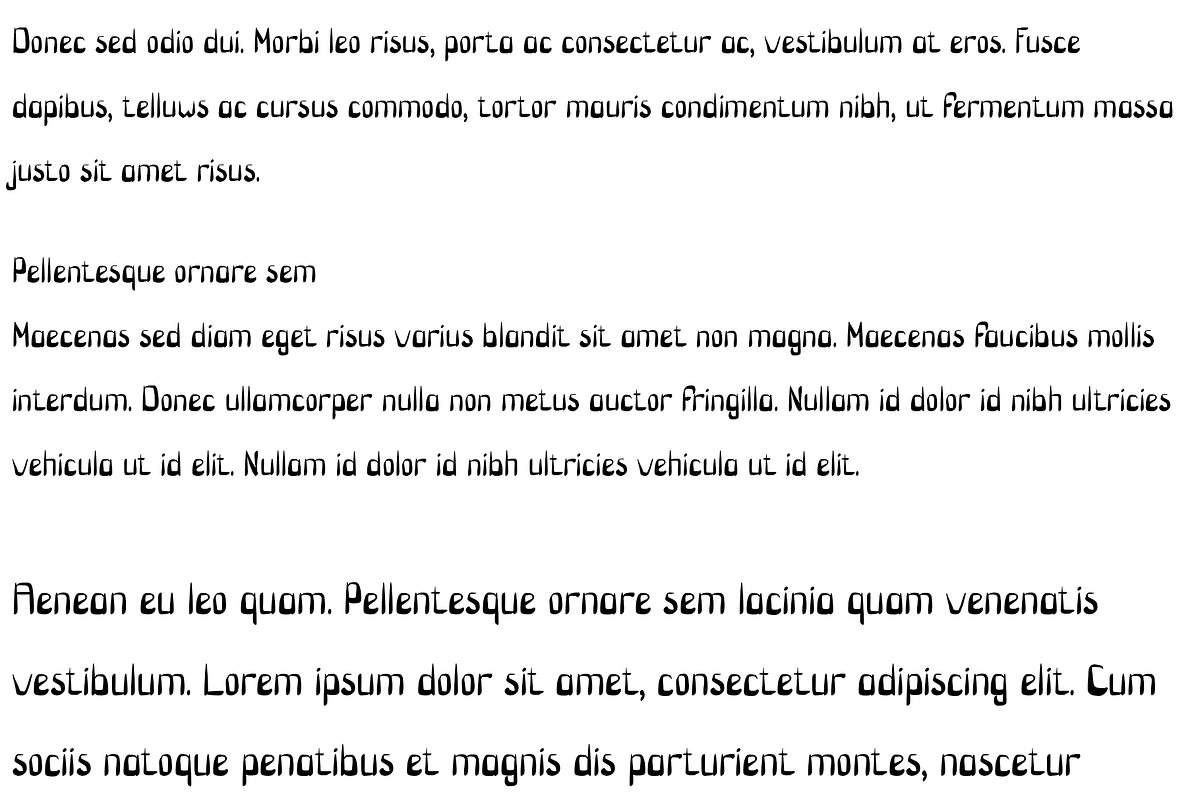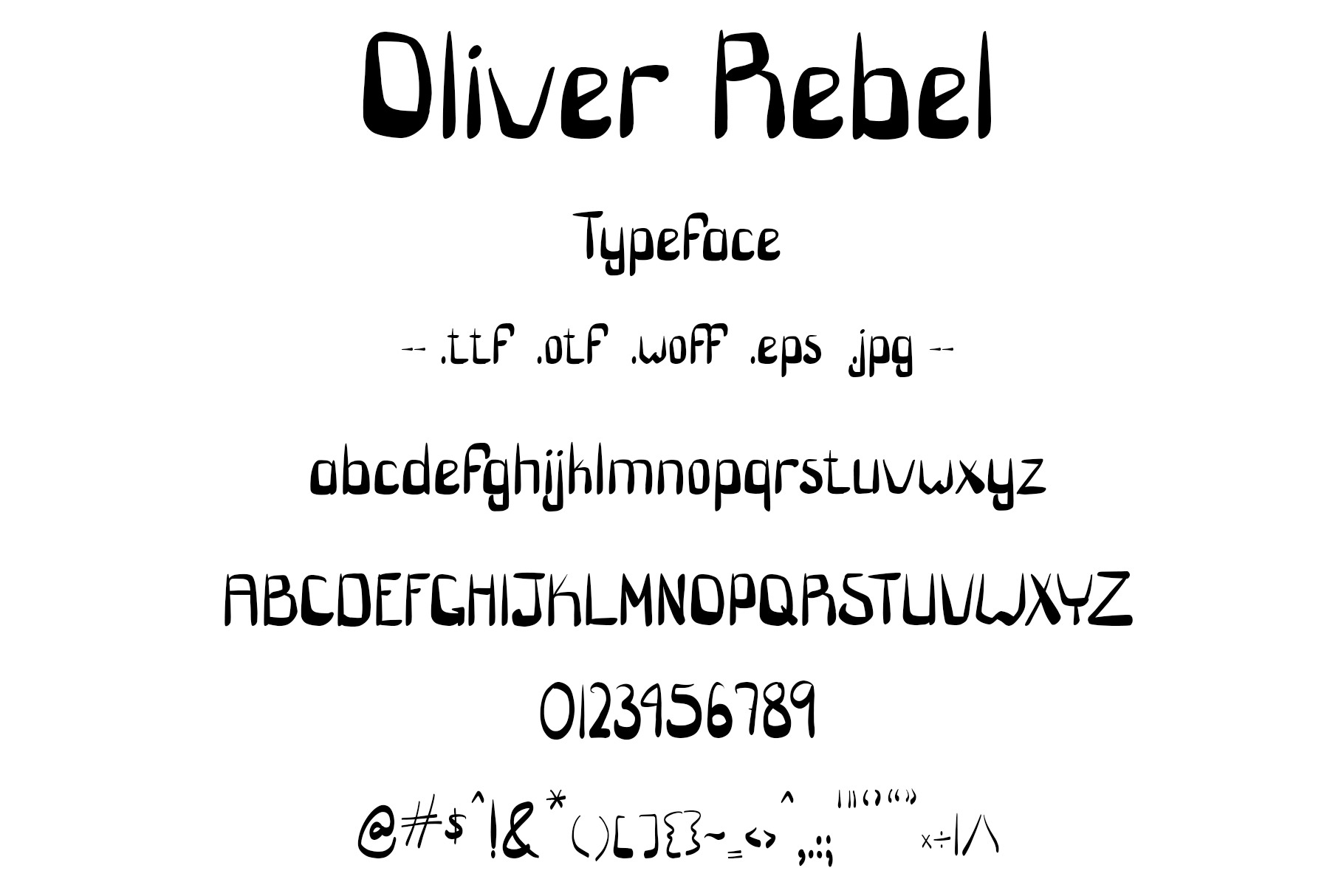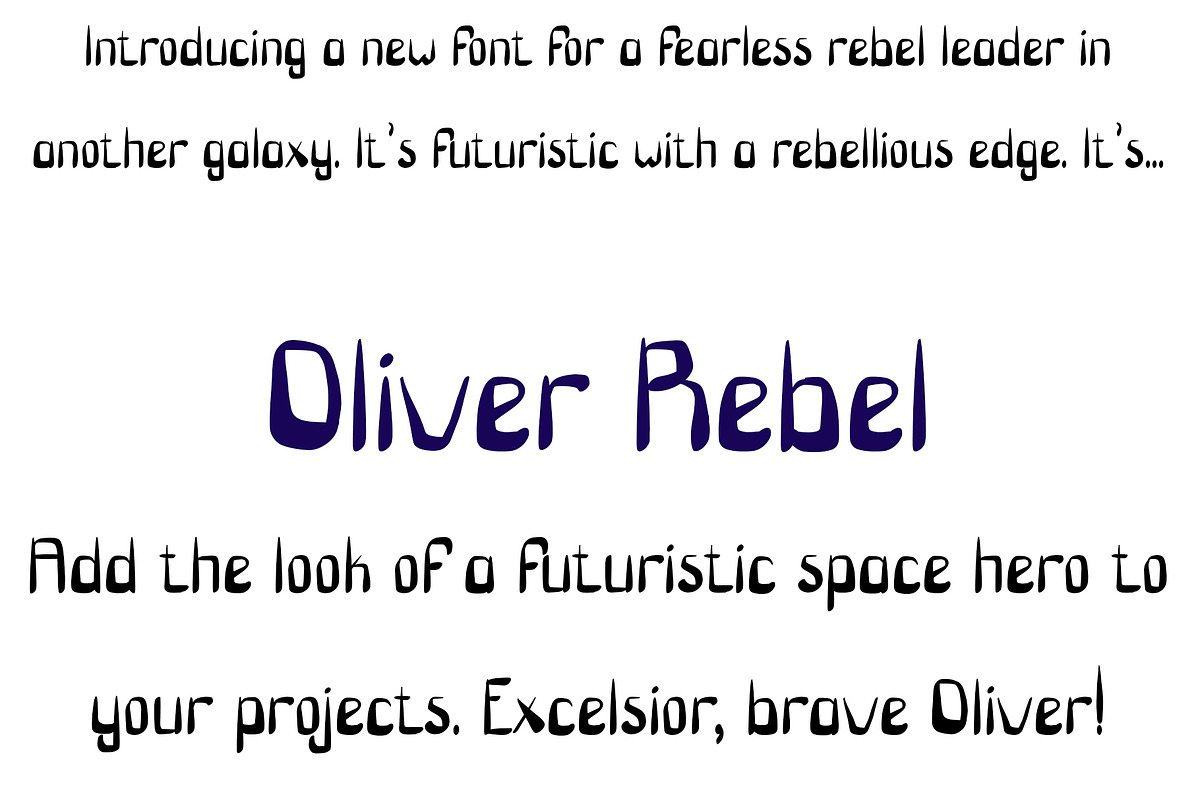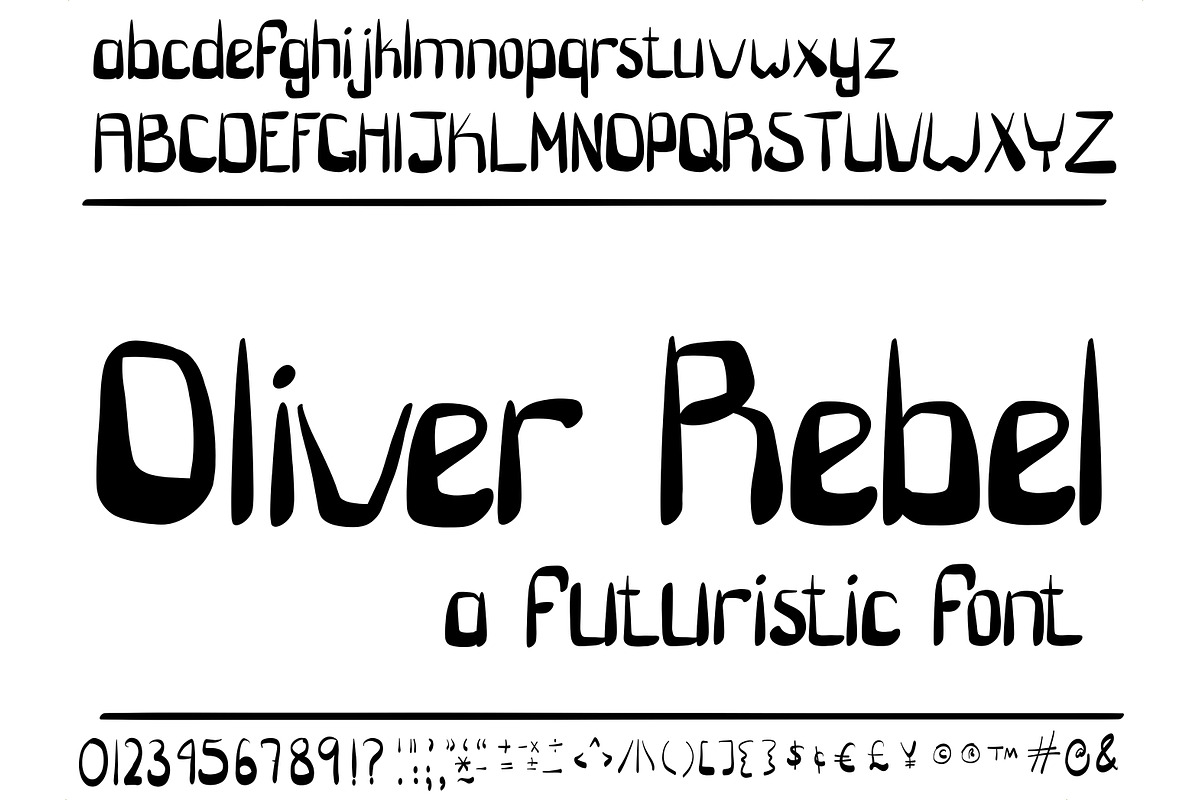
Font Oliver Rebel Sci Fi Space Theme
Hand drawn font. "Oliver Rebel" typeface is futuristic with a science fiction, space opera theme. Sans serif, cute, and easy to read.